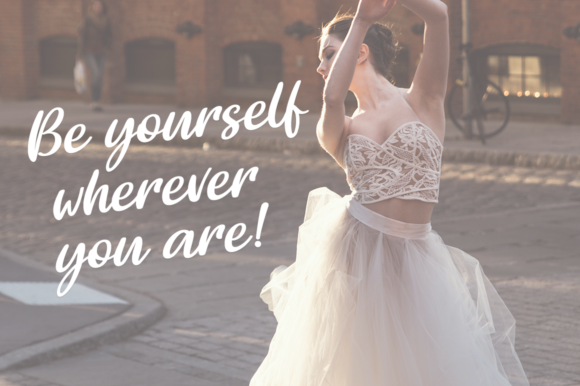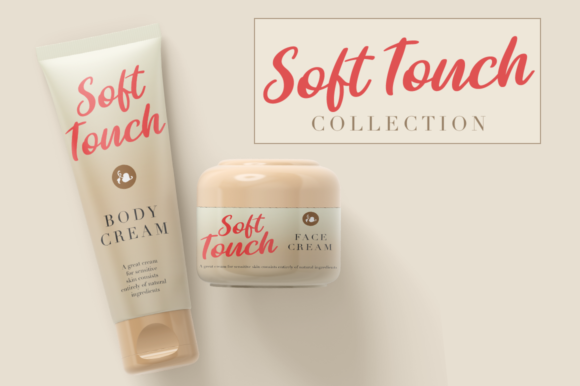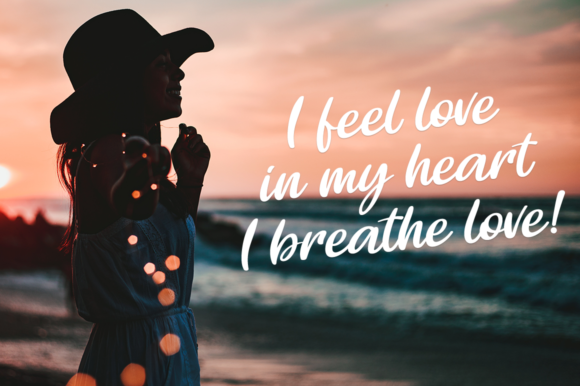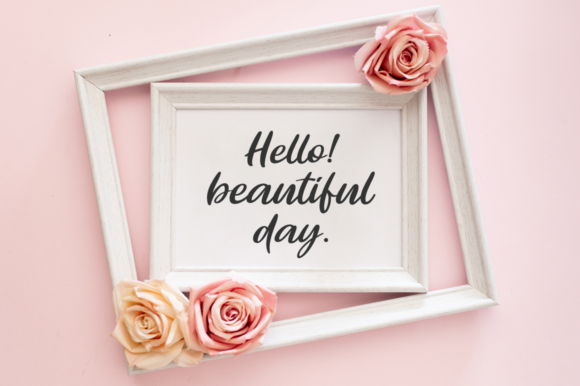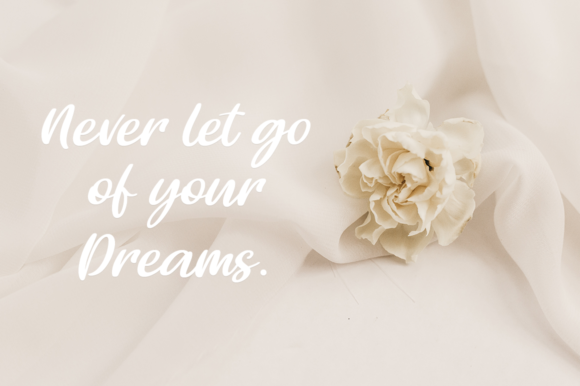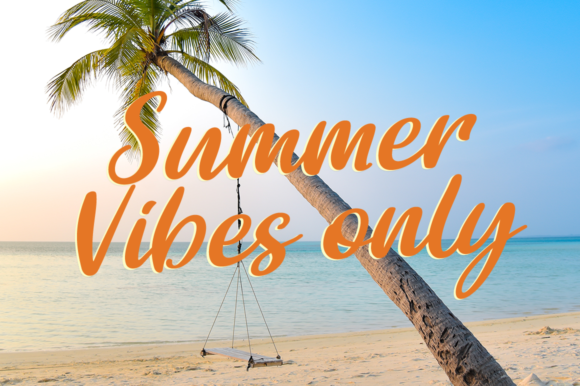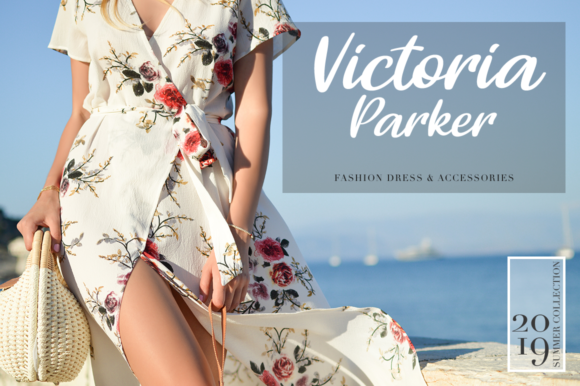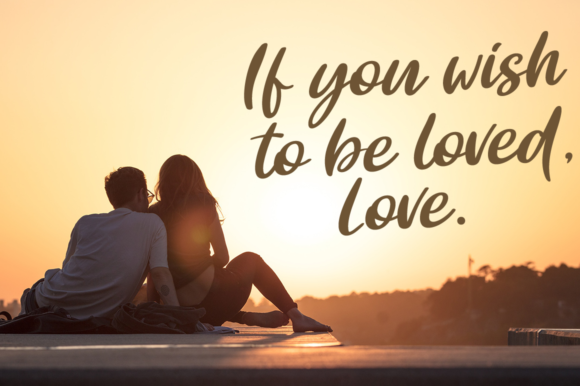
Brisbane Font
About Brisbane Font
Brisbane is a stunning and carefully crafted handwritten font with a unique feel. It will add a personal charm to any design project!